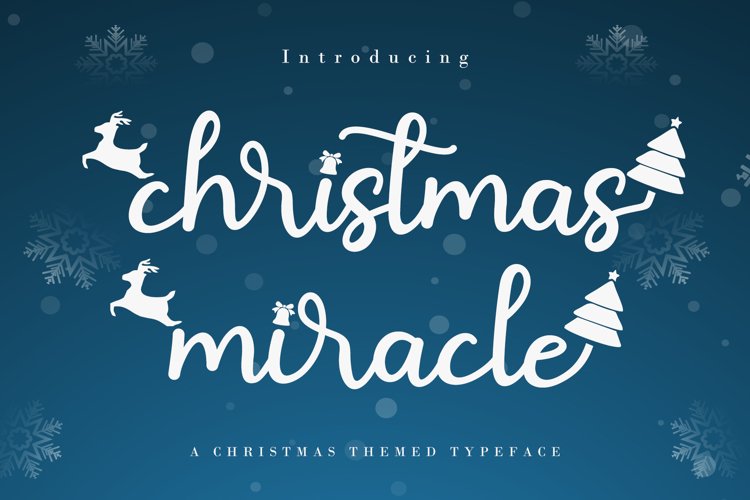
Christmas Miracle is a cute handwritten font. It will add an incredibly joyful touch to your designs. Add this beautiful display font to each of your creative ideas and notice how it makes them stand out!